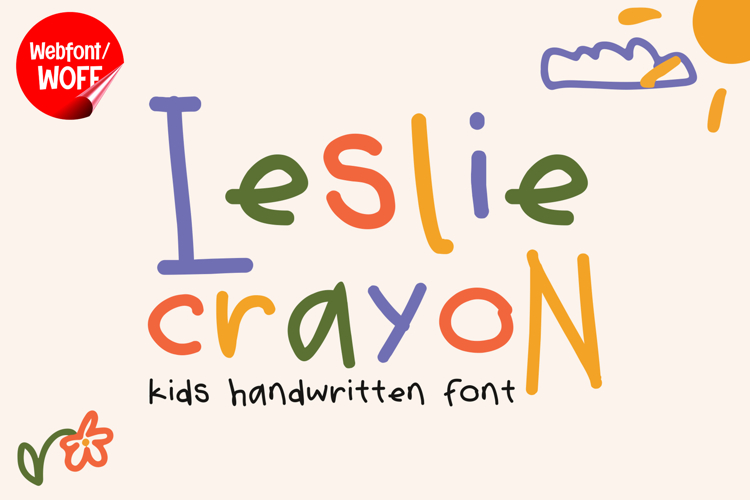
Leslie Crayon | Webfont Natural Kids Handwritten for Website
Leslie Crayon Webfont is a playful and natural handwritten typeface designed to enhance digital design with warmth and character. Inspired by crayon strokes and spontaneous writing styles, this font captures a lively and creative look that works perfectly for modern websites.
Typography plays an important role in how users experience a website. Leslie Crayon is designed as a display webfont, making it ideal for headlines, landing pages, banners, and highlighted sections. Its hand-drawn appearance adds a friendly and engaging tone, helping websites feel more expressive and inviting.
The font includes two styles: Regular and Bold. The Regular style offers a soft handwritten feel, suitable for light and casual layouts. The Bold style provides stronger emphasis, making it effective for headlines and key messages. These styles can be used together to create visual hierarchy and improve content structure.
This webfont works well for a variety of digital applications. It is especially suitable for children-focused websites, educational platforms, blogs, creative portfolios, and lifestyle brands. Its friendly appearance helps create a welcoming environment and encourages user interaction.
One of the key strengths of Leslie Crayon in web design is its ability to communicate emotion. The natural irregular strokes create a handcrafted look that adds authenticity to digital content. This makes it effective for storytelling, branding, and visual communication.
Despite its playful design, the font maintains readability when used at appropriate display sizes. It can be paired with clean typefaces for body text to create a balanced layout and improve user experience. This combination allows designers to maintain clarity while adding visual interest.
Leslie Crayon also works well with modern web interactions. When combined with animations, hover effects, or scrolling transitions, it adds a dynamic and engaging element to the design. This enhances the overall user experience and makes the website more memorable.
Overall, Leslie Crayon Webfont is a flexible and expressive typeface that transforms simple text into visually engaging elements. It brings creativity and character into digital design, making it a strong choice for websites that aim to stand out.